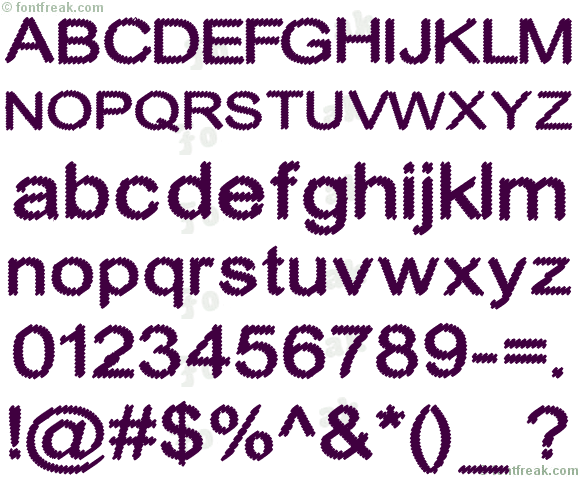
Cylonic Crossdraft
About Cylonic Crossdraft
Cylonic Crossdraft by Gemfonts is a distinctive display font that captivates with its unique design and dynamic character. This freeware typeface boasts a bold and playful aesthetic, making it an ideal choice for a variety of creative projects. The font features a brush-like texture with irregular edges, giving it an energetic and artistic flair. The stroke weight varies throughout the characters, creating an engaging contrast that draws the eye. The spacing is well-balanced, allowing for easy readability while maintaining an expressive style.
Cylonic Crossdraft is particularly well-suited for vibrant use cases such as movie posters, where its dramatic appearance can enhance the visual storytelling. It also shines in branding for small businesses, especially in creative industries like cafes or boutiques, where a unique identity is essential. Wedding invitations can benefit from its whimsical charm, adding a touch of personality to the special day. Additionally, this font works wonderfully for social media graphics, helping content creators capture attention with its bold and playful vibe.
The target audience for Cylonic Crossdraft includes graphic designers looking for a standout typeface to elevate their projects, small business owners seeking an eye-catching font for branding, and content creators wanting to infuse their digital presence with a unique touch.
What sets the Cylonic Crossdraft font apart is its ability to combine artistic flair with functionality. Its free availability makes it accessible to a wide range of users, while its distinctive design ensures that any project using it will leave a lasting impression. Whether you are searching for a font that embodies creativity and energy or simply looking for a Cylonic Crossdraft font free download, this typeface is sure to deliver.